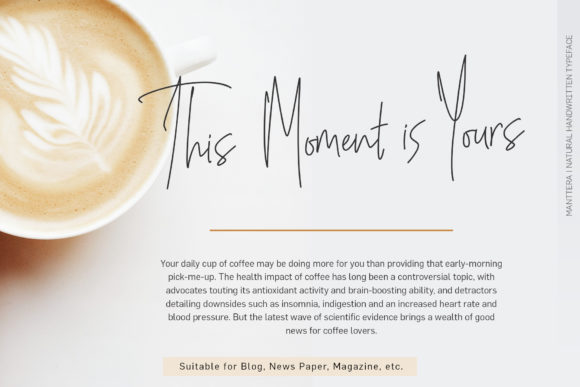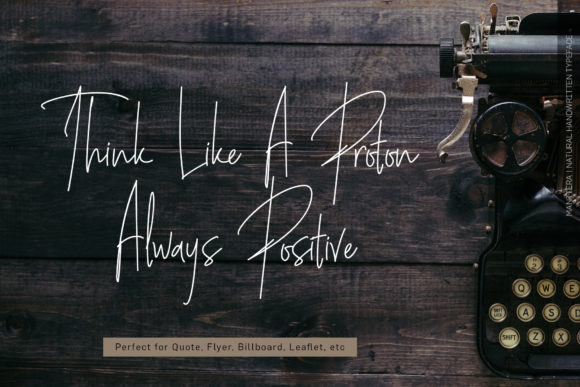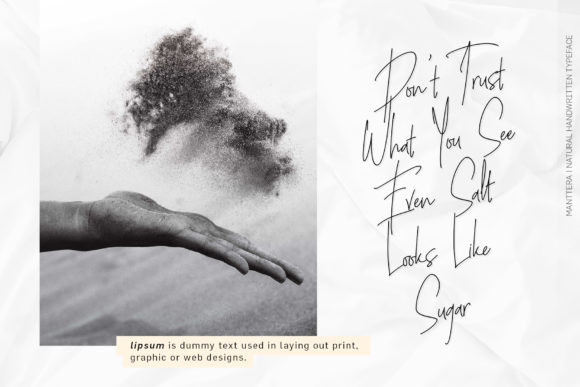
Introduction to Manterra Font
Have you ever sat down with a pen and paper, feeling the rush of creativity as your thoughts flow onto the page? For designers, those moments of pure inspiration are what drive our passion and fuel our imagination. But, let’s be honest, not everyone has the luxury of having a designer’s handwriting. That’s where the Manterra Font comes in – a high-quality, authentic handwritten script font that captures the essence of natural handwriting.
With its carefully crafted design, the Manterra Font is a valuable resource for designers looking to add a personal touch to their creative projects. Its transparent background and free download feature make it an excellent choice for designers who want to experiment with different styles and layouts without any restrictions. Whether you’re working on a branding project or a social media campaign, the Manterra Font is sure to bring a touch of elegance and sophistication to your design.
Key Features of Manterra Font
- High-quality design resource suitable for various creative projects, including graphic design, digital art, and more.
- Transparent background, allowing for seamless integration with any design or image.
- Each font character is carefully crafted to ensure crisp and clear readability at resolutions up to 300 DPI.
- Manterra Font is ideal for use in print and digital media, including business cards, brochures, and website headers.
- Unique, modern design aesthetic that sets your creative project apart from the competition.
Honest Review: Manterra Font
As a designer, I’m always on the lookout for high-quality design resources that can elevate my creative projects. Recently, I stumbled upon the Manterra Font, and I’m excited to share my thoughts on this free download.
The Manterra Font is a beautiful, modern script font that’s perfect for adding a touch of elegance to your designs. It features a transparent background, making it ideal for creating stunning visual effects. ✨
- Highly customizable: The font offers a range of styles and weights, allowing you to fine-tune your design to perfection.
- Perfect for creative projects: The Manterra Font is ideal for branding, typography, and other creative projects that require a unique and eye-catching font.
While the Manterra Font is a great addition to any designer’s toolkit, there are a few limitations to consider. ⚠️
- Not suitable for body text: The font is best used for headlines, titles, and other emphasis text, as it can be a bit difficult to read in large blocks of body text.
- Limited language support: The font may not support all languages, so be sure to check compatibility before using it in your project.
Overall, I’m impressed with the Manterra Font, and I’m sure it will become a go-to choice for many designers. With its high quality and flexibility, it’s a must-have for any creative project.
Tips for Getting the Most Out of Manterra Font
Experiment with different font sizes and colors to create visually appealing effects. Use the font in combination with other design elements, such as graphics and images, to add depth and interest to your project.
Manterra Font is suitable for a wide range of creative projects, including logos, brochures, business cards, and social media graphics. Its versatility makes it an excellent choice for designers who want a high-quality, easy-to-use font.